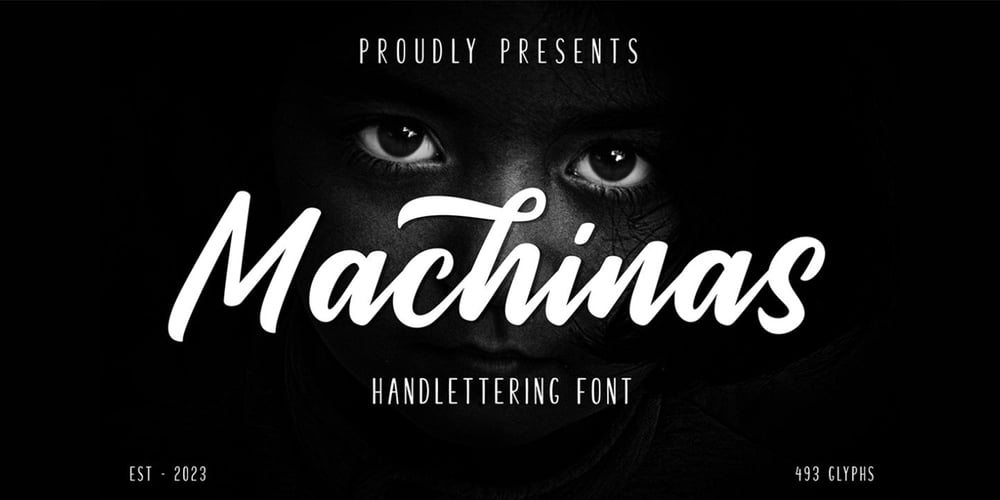
Machinas Typeface
Machinas Typeface font
Machinas Typeface Font Family was designed by Afri Giani and published by Gian Studio. Machinas Typeface contains 1 styles and family package options. The Machines Typeface is a retro and classic typeface inspired by the 70s – 90s designs with more unique explored styles like swosh and alternate characters. This font is made from a manual sketch with many many scratches then finished with the font. there are 493 glyphs, so many options that you can use for your projects, Make your designs project with this font and extras illustration to give more superb. This font is also suitable to design like logos, stickers, tees design, banners, posters, sign, display design, packaging, and more superb designs!Enjoy our product and feel free to contact us for support!Features :Full set of Upper & Lowercase CharacterNumber & PunctuationSwosh AlternateExtras IllustrationMultilingual LanguagePUA encodedOpentype FeaturesThank You for your purchase!